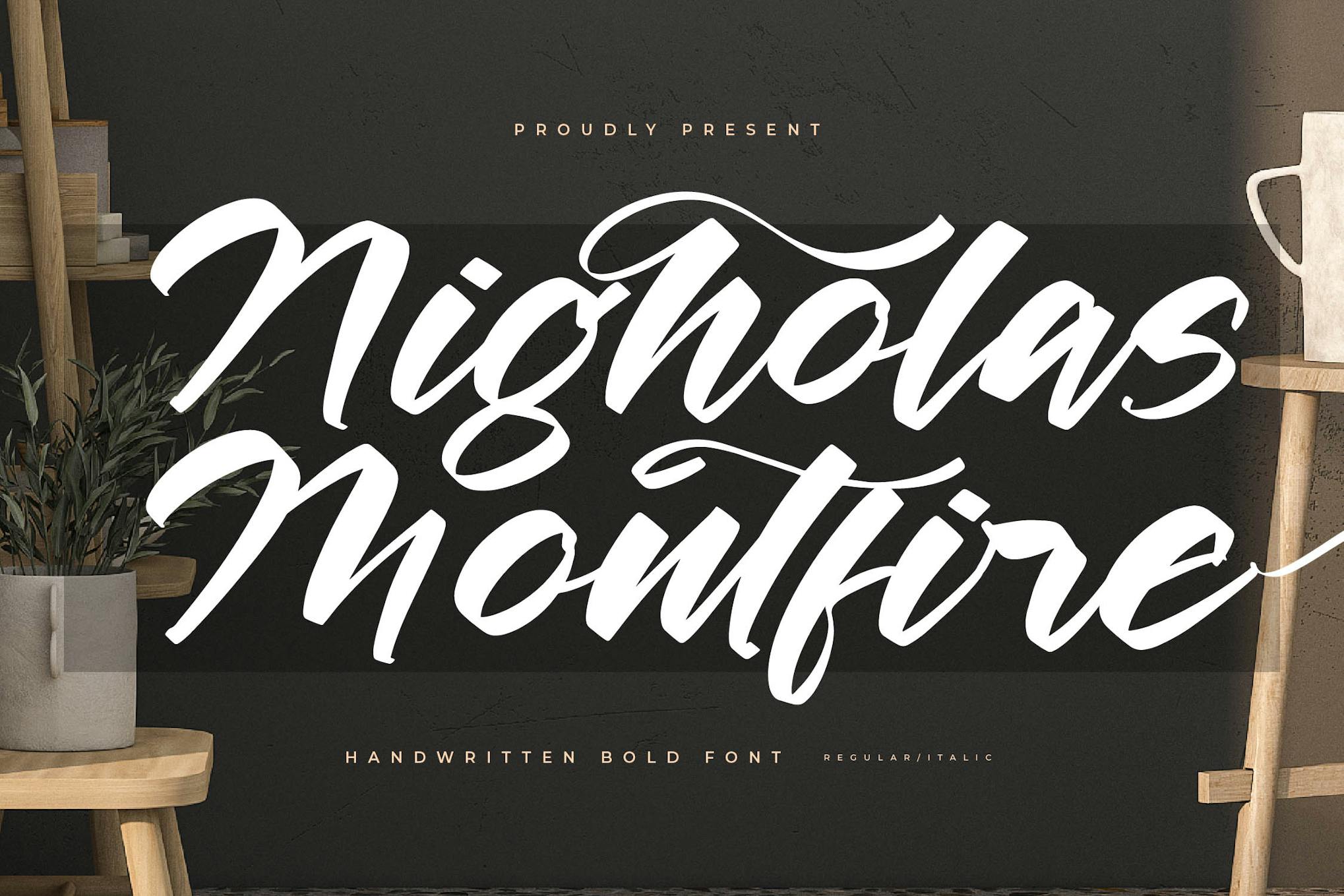
Nigholas Montfire Handwritten Bold Font
The Nigholas Montfire Handwritten Bold Font is perfect for powerful signature logos, bold personal branding, striking headline designs, confident business cards, impactful book titles, strong motivational quotes, commanding social media graphics, assertive product packaging, dramatic poster designs, and authoritative brand communications.
What makes the Nigholas Montfire Handwritten Bold Font so exciting is its commanding combination of authentic handwritten character with bold visual weight that creates an unmistakable presence and personal authority. This striking typeface features thick stroke construction, confident letter spacing, and distinctive character formations that perfectly capture the essence of bold personal expression and leadership confidence. The font's powerful personality and handcrafted authenticity make it an exceptional choice for individuals and brands seeking to communicate strength, personal conviction, and genuine leadership with undeniable visual impact.
The Nigholas Montfire Handwritten Bold Font family includes stylistic alternates and character variations, featuring multiple bold stroke options, decorative capitals, and connecting elements. Each variation maintains the signature bold handwritten appeal while offering different levels of visual intensity and personal expression, giving designers comprehensive flexibility for creating commanding typographic statements and memorable brand personalities.
This exceptional Nigholas Montfire Handwritten Bold Font Free Download represents the ideal typography solution for designers who need bold handwritten style that commands attention and respect. Whether you're developing personal brand identities, creating leadership content, or designing confident marketing materials, this versatile bold handwritten font delivers powerful results that resonate with audiences seeking authentic strength and personal authority.
The impressive handwriting characteristics of Nigholas Montfire Handwritten Bold Font showcase expert bold script design, with each letter carefully crafted to maintain natural flow while delivering maximum visual impact and readability. The font's extensive character set includes uppercase and lowercase letters, numerals, punctuation marks, and special symbols, ensuring comprehensive coverage for diverse bold projects and international applications.
Specifically designed for both digital and print applications, this outstanding font maintains its bold handwritten character and commanding presence across all sizes and formats. From large-scale signage to detailed personal communications, Nigholas Montfire Handwritten Bold Font performs exceptionally while preserving its distinctive bold personality and authentic handcrafted appeal.